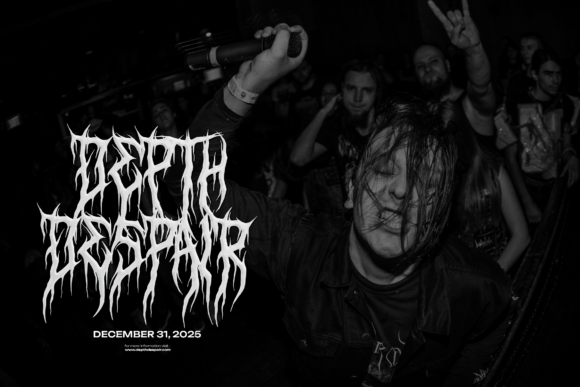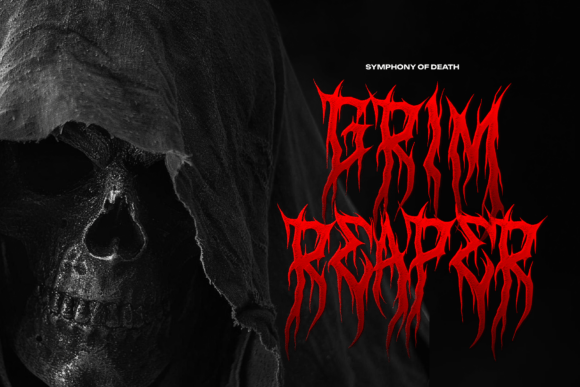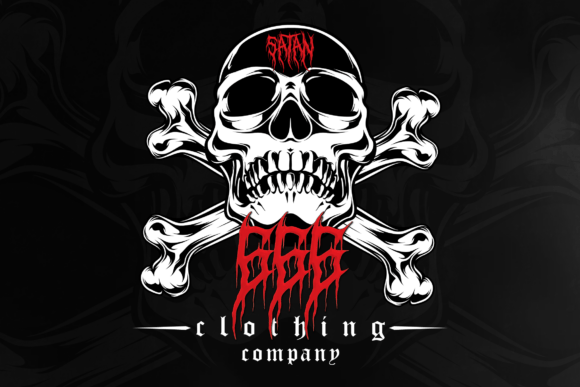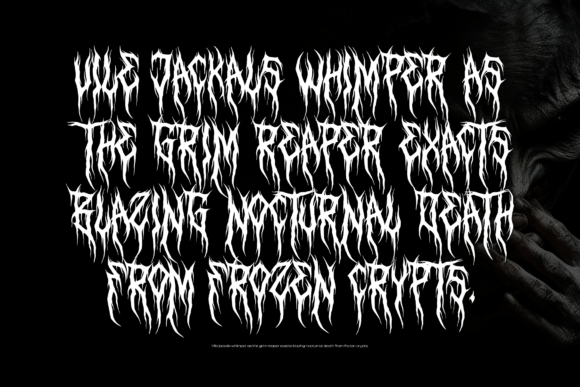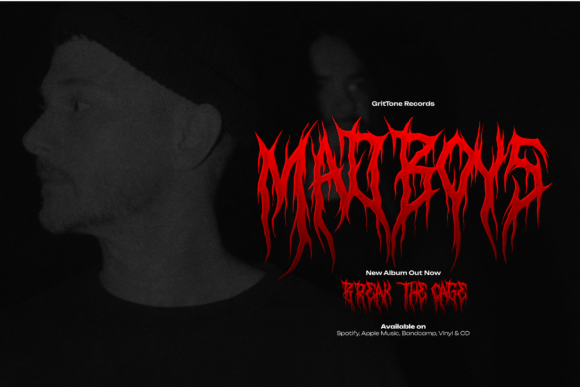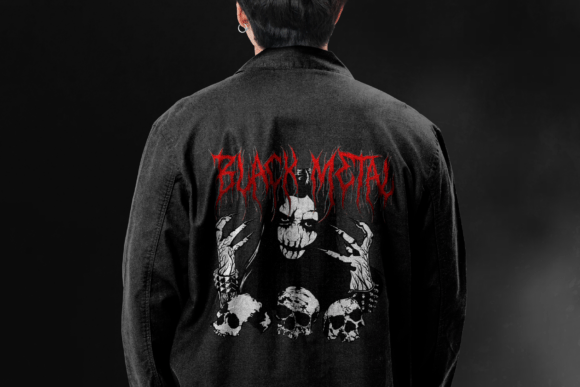
Introduction to Deathcore Font
Deathcore is a black metal font suitable for any projects such as: logos, branding projects, homeware designs, product packaging, mugs, quotes, posters, shopping bags, t-shirts, book covers, name card, invitation cards, greeting cards, label, photography, watermark, special events, and all your other lovely projects that need a Black Metal Font taste.
Deathcore is a black metal font suitable for any projects such as: logos, branding projects, homeware designs, product packaging, mugs, quotes, posters, shopping bags, t-shirts, book covers, name card
Key Features of Deathcore Font